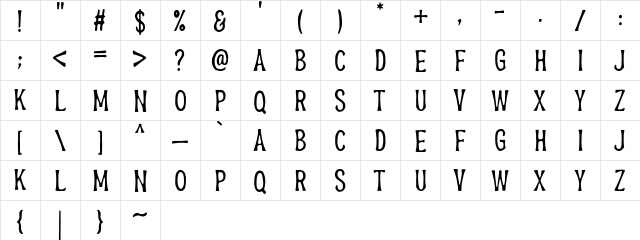
Branders DEMO Regular
| Designer | Sarid Ezra |
Design Context for Branders DEMO Typeface
Branders DEMO takes a measured approach to typography — its balanced proportions and neutral character make it a reliable workhorse for both digital and print work.